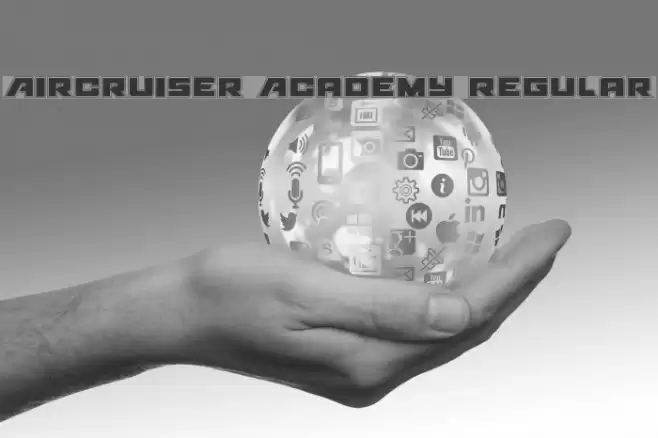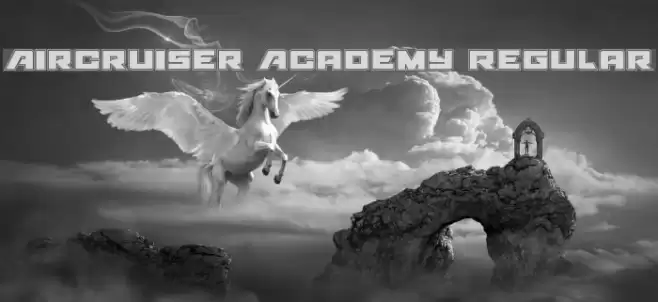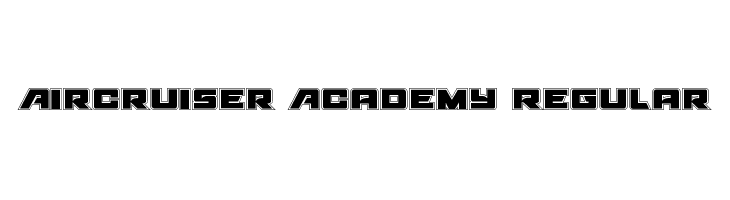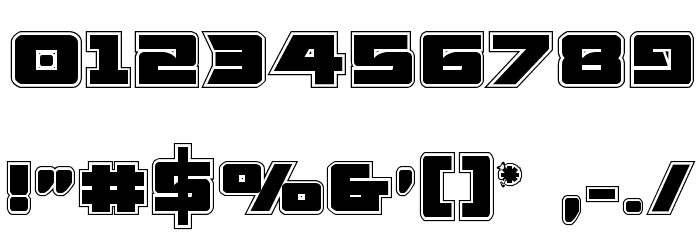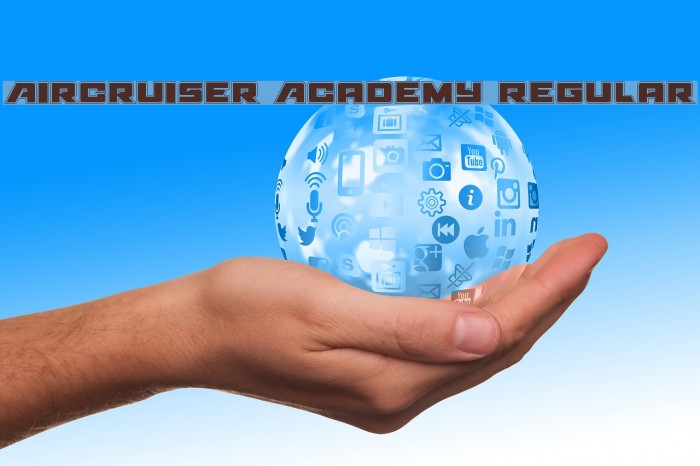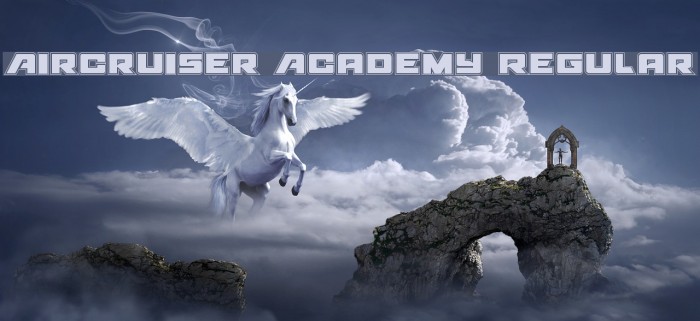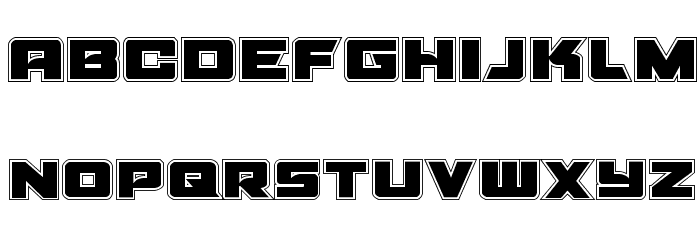
Aircruiser Academy Regular Font
Aircruiser Academy Regular Description
This font features a bold, geometric design with a strong presence. The characters are outlined with a thick border, giving them a three-dimensional appearance. The uppercase letters are uniform in height, while the lowercase letters maintain a consistent style, ensuring readability. The numerals and special characters follow the same bold and structured design, making them stand out. This font is ideal for projects that require a modern and impactful look, such as sports branding or technology-related designs.
A bold, geometric font with a three-dimensional outline from Uncategorized fonts.
- Proposed Projects: Ideal for sports branding, technology logos, and modern posters.